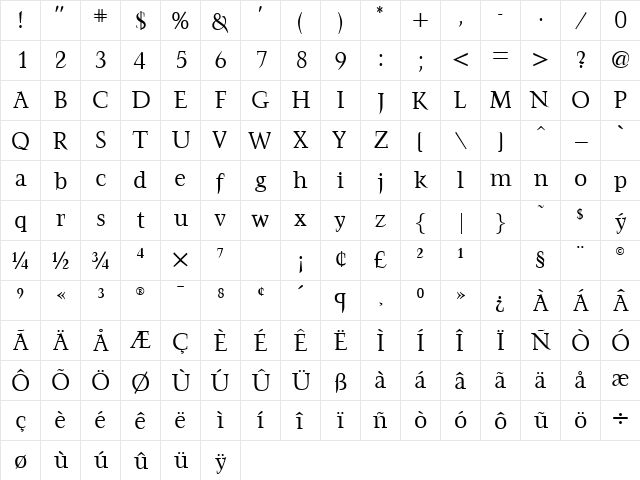
Farringdon DB Regular
Design Context for Farringdon DB Typeface
Farringdon DB is a composed and adaptable typeface that performs quietly and consistently across a wide range of design contexts.